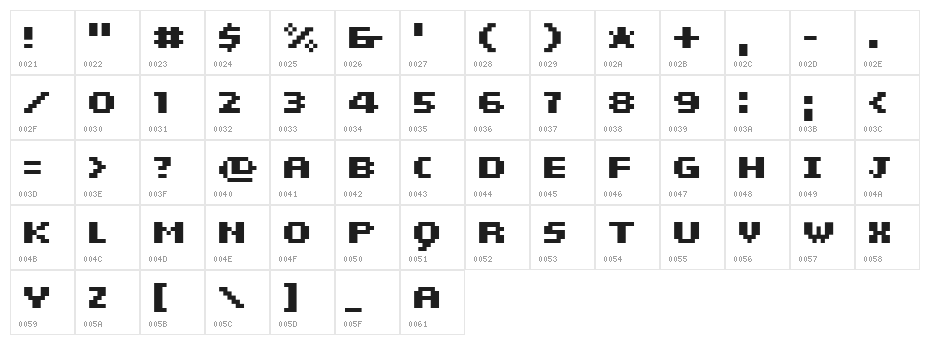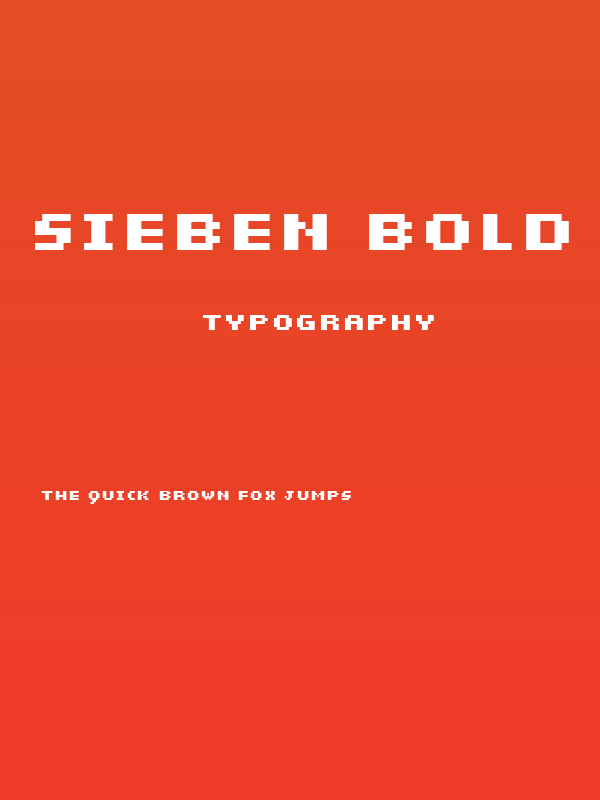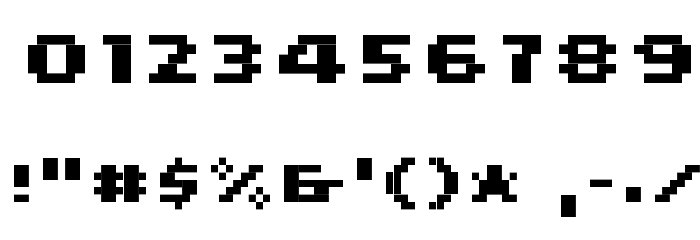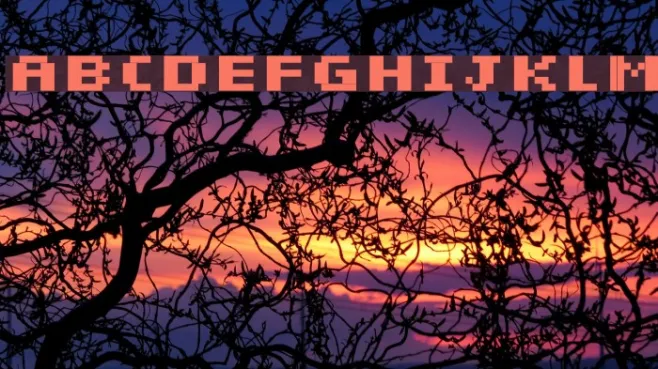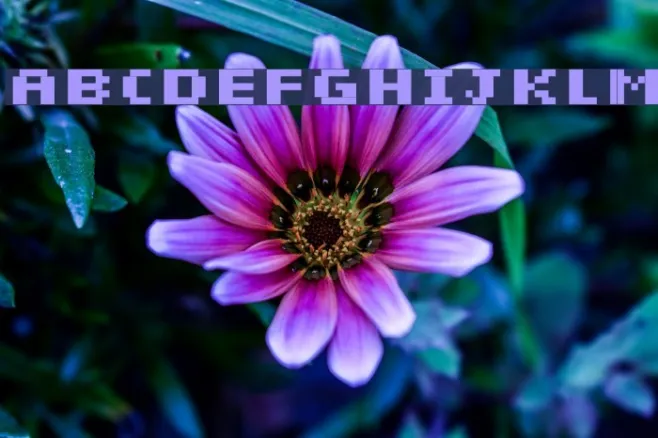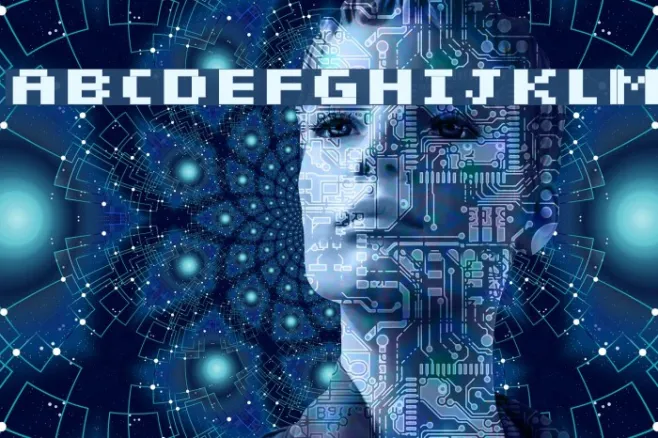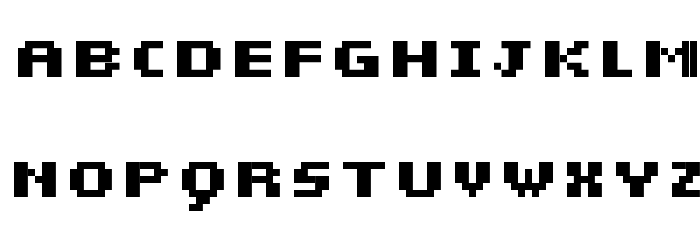
sieben Bold Font
sieben Bold Description
This font features a bold, pixelated design reminiscent of early digital displays and video games. Each character is constructed with a blocky, grid-like appearance, emphasizing a retro aesthetic. The uppercase and lowercase letters maintain consistent proportions, creating a uniform look across the typeface. Numbers and special characters follow the same pixelated style, ensuring a cohesive visual experience. The font's distinct, geometric shapes make it highly legible at various sizes, ideal for capturing attention in digital and print media.
| Overall Style | Retro, Digital |
| Use Case | Headlines, Logos, Digital Art |
| Proposed Projects | Ideal for retro-themed designs, video game graphics, digital art projects, and any creative work requiring a nostalgic, digital look. |